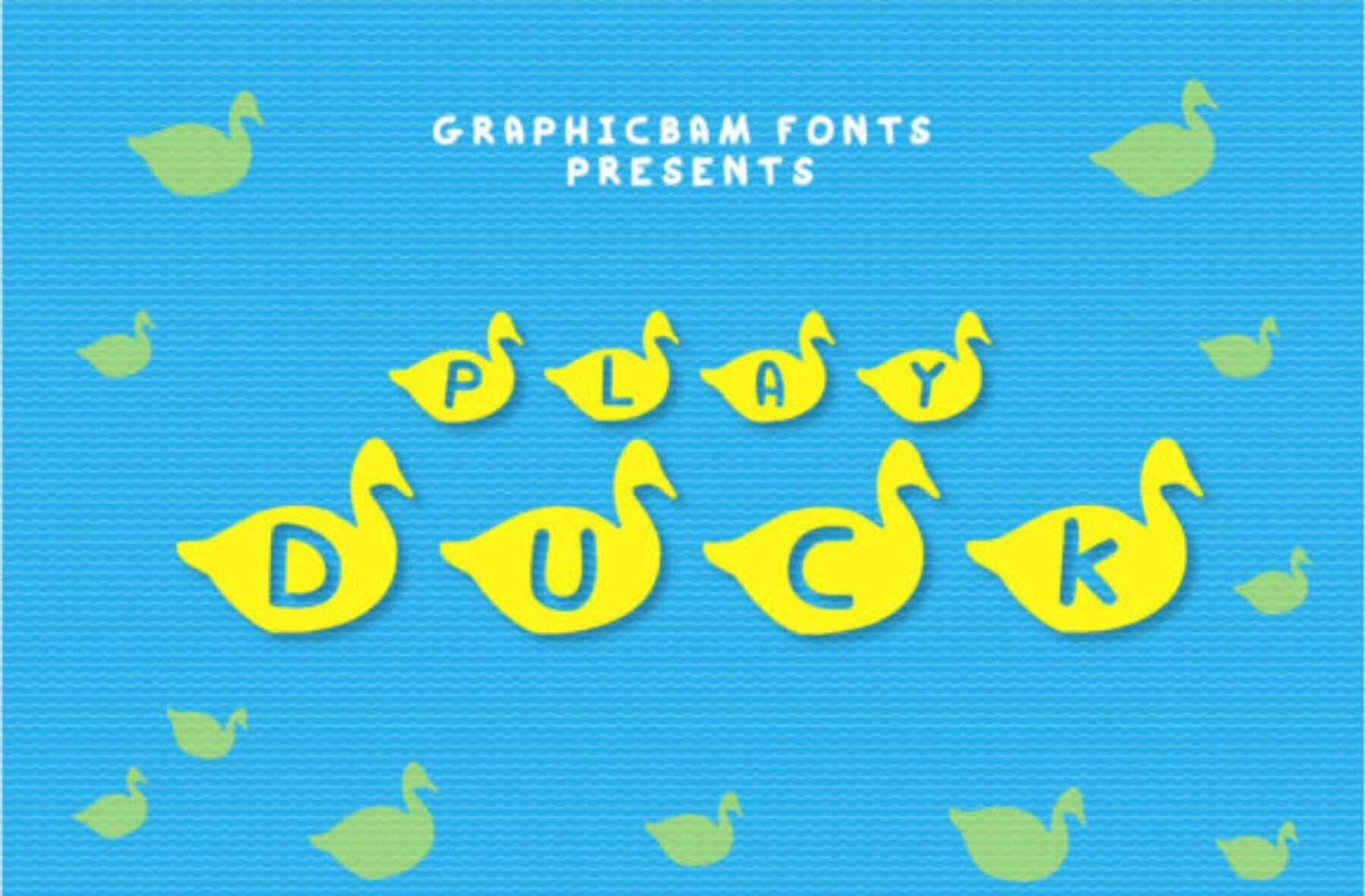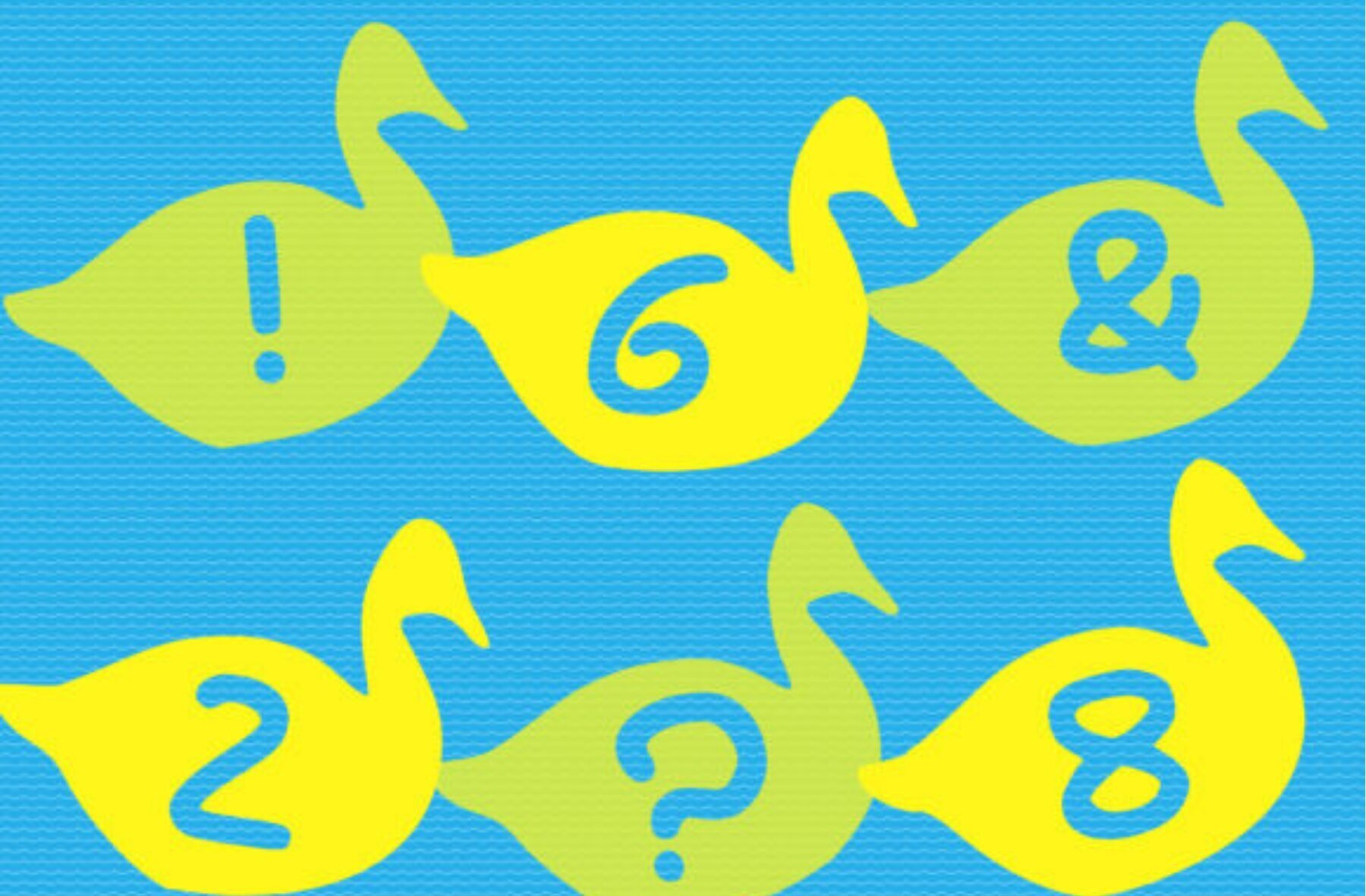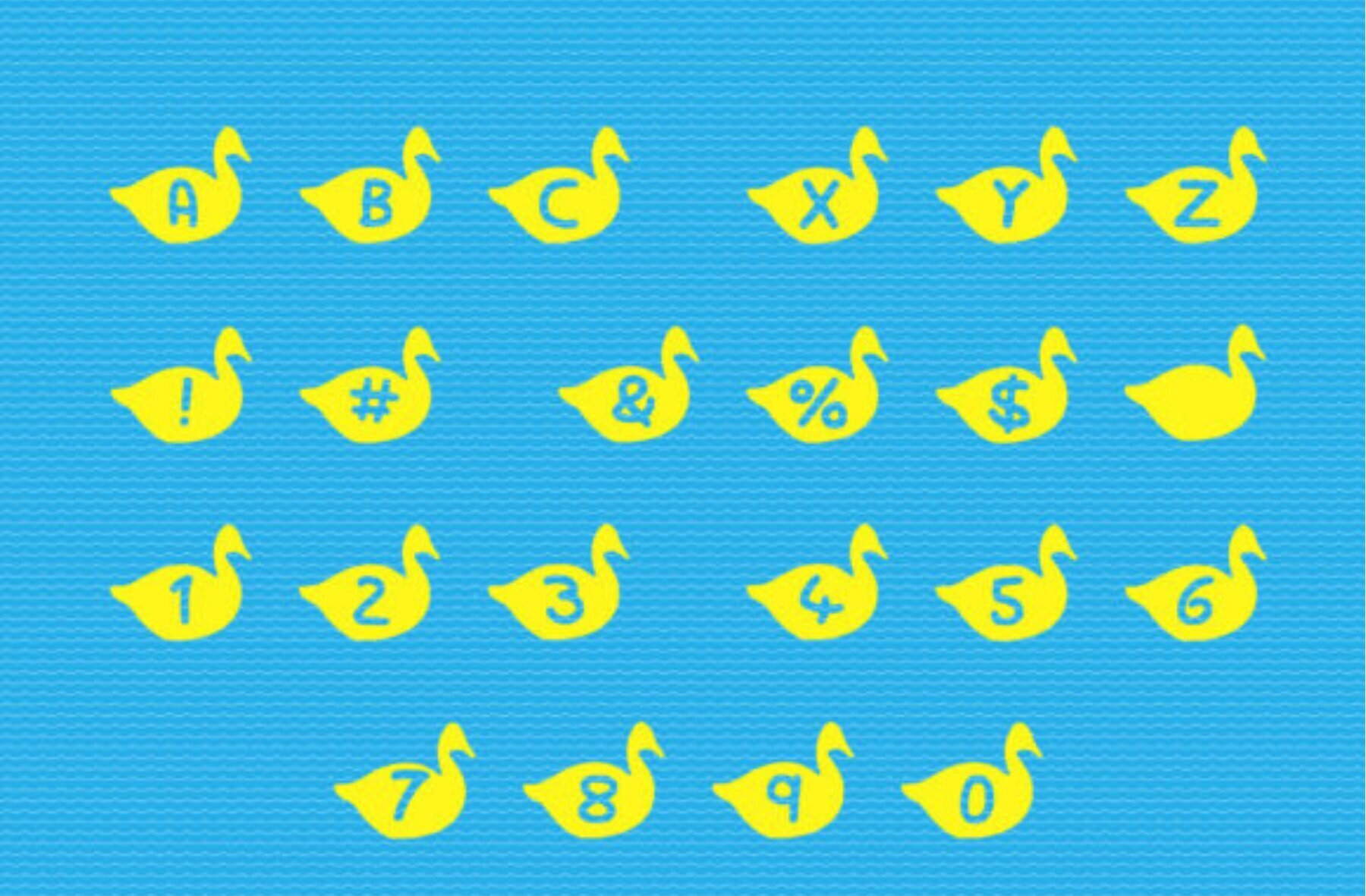
Play Duck Font
Play Duck Regular
Infuse your creations with whimsy using the Play Duck decorative font. Each character is adorned with a charming duck motif, adding a playful touch to your projects. This unique font is perfect for any theme, making it a valuable addition to your font collection.Play Duck: A Unique Decorative Font